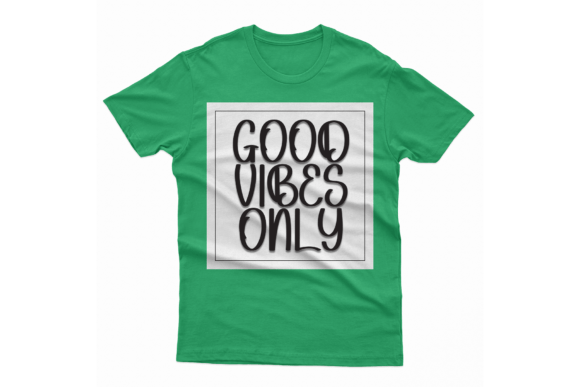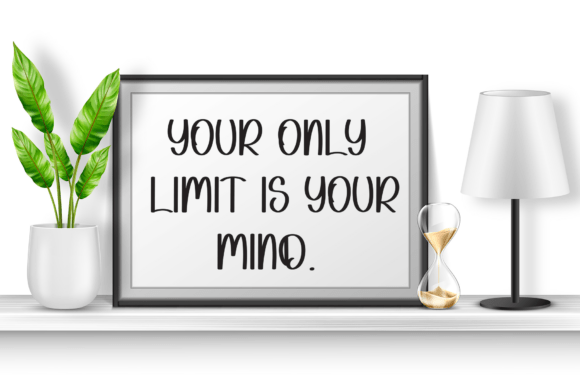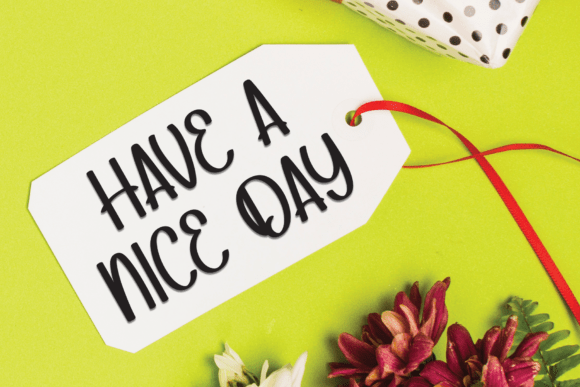
Bunny Summer Font
Radiating warmth and charm, is a tactfully handwritten display font named “Bunny Summer”. Armed with a playful and adorable appeal, it seamlessly infuses a mirthful essence into every design where it’s applied. Be it wedding invitations exuding romance or greeting cards sharing joyous tidings, this fun-loving font is your go-to ally for endearing and inviting communications. Break away from the conventional, embrace the captivating allure of the ‘Bunny Summer’ font, perfect for bringing a delightful touch to every design narrative.